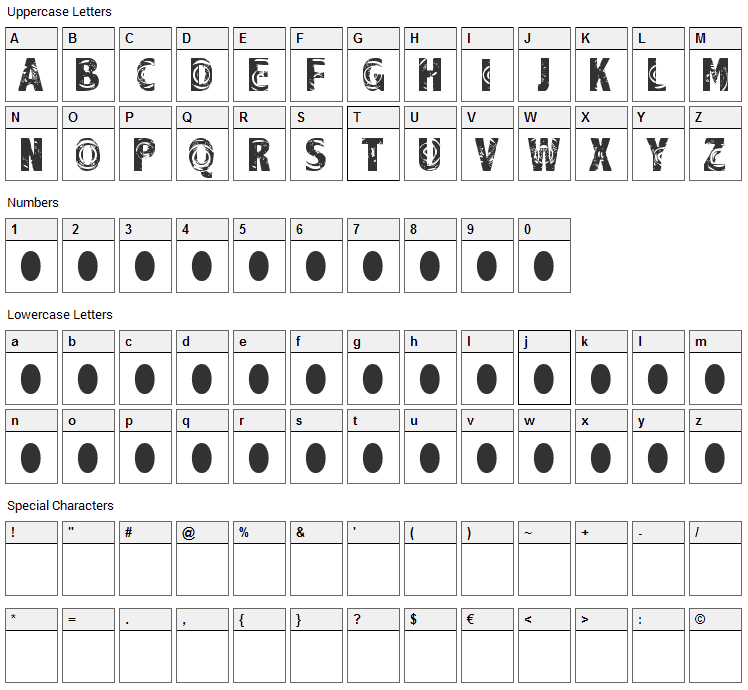
Raindrop Splash Font
Font Name:Raindrop Splash
Developer:Blonde Fonts
Category:Fancy > Decorative
Second in a series of water-related fonts (the first being, Underwater Love), the idea with this was to make the letters look swirled, like the concentric circles you see when a raindrop splashes into a puddle...